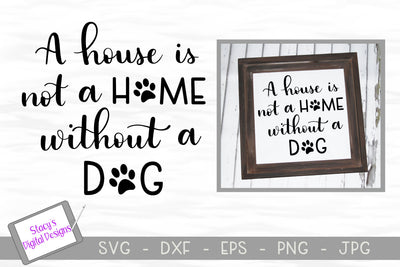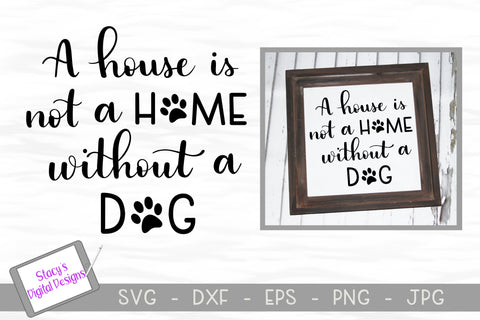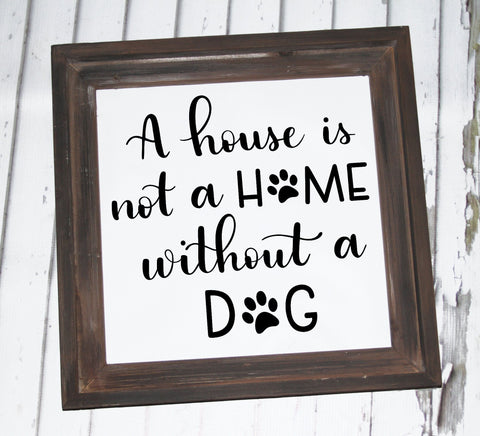
Dog SVG - A house is not a home without a dog
Use this handlettered 'A house is not a home without a dog' SVG with your Cricut or Silhouette (or other cutting machine) to create a wood sign, mug, or other cut file project.